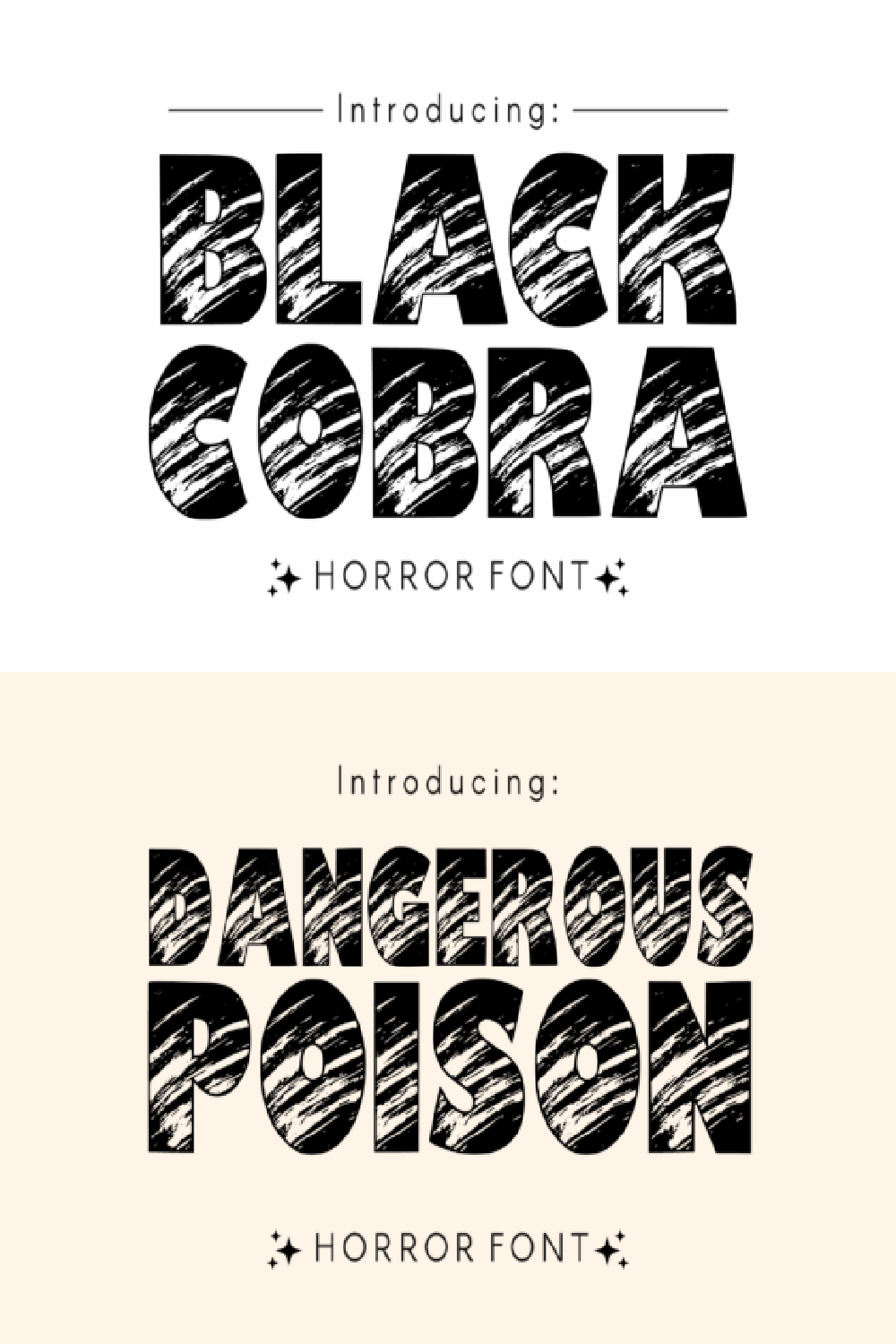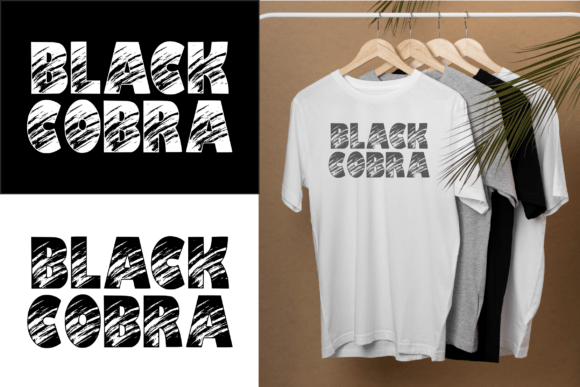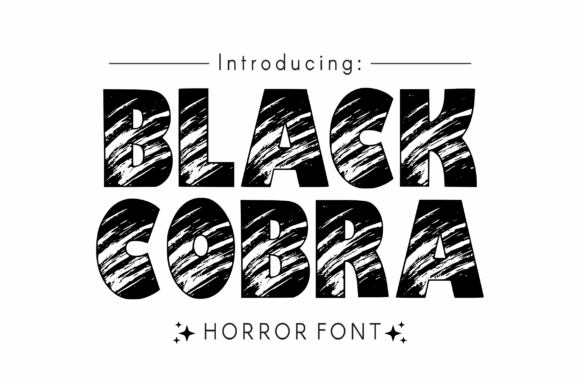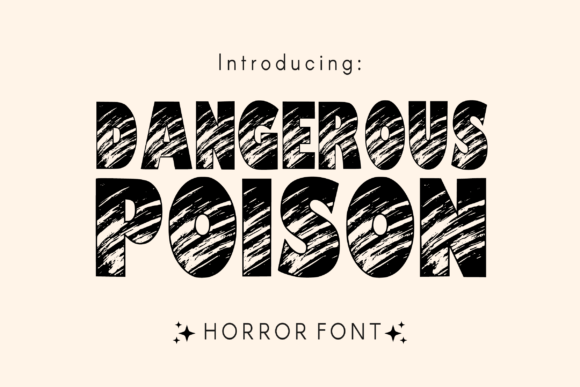
Black Cobra Font: Grunge Display Font for Spooky Designs
About the Black Cobra Font
Discover the charm of Black Cobra Font. This font is a perfect blend of modern aesthetics and classic appeal. Unveiling the spine-chilling allure of “BLACK COBRA” – a font that encapsulates the elements of horror and grunge in a unique shadowy style. The captivating elements of each character are designed with distinctive strokes that evoke eeriness, perfect for bring out the element of fear.
Its versatility allows it to be an ideal choice for a range of creative endeavors like screen printing on t-shirts, concocting striking mugs, creating catchy stickers, designing eye-catching posters, or fulfilling any other digital design needs. Dive into the darkness with “BLACK COBRA”, a font that isn’t just letters, but an ode to all things mysterious and terrifying.